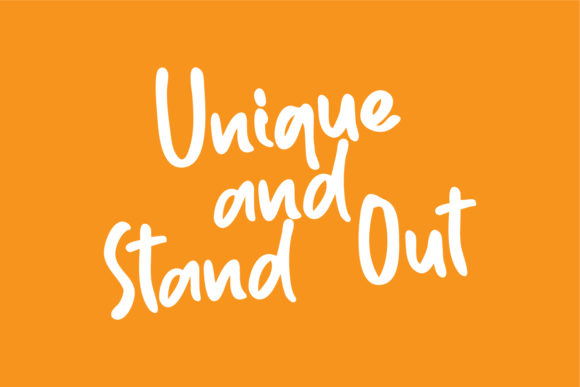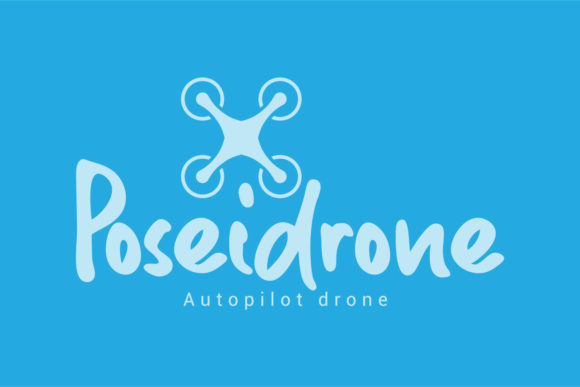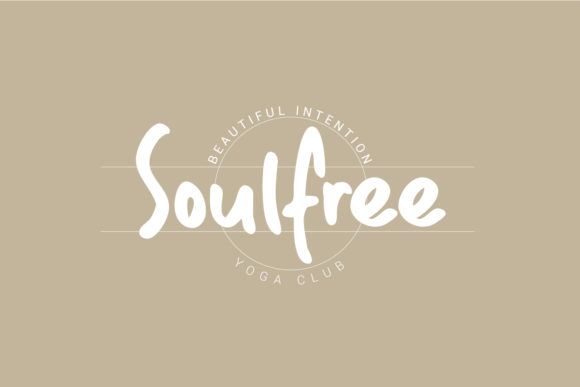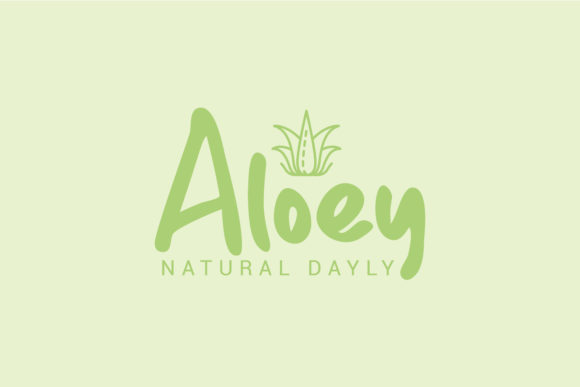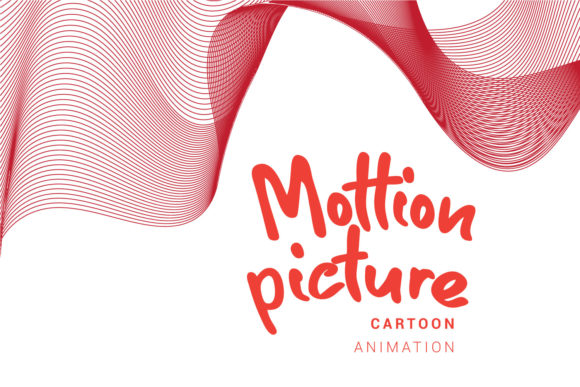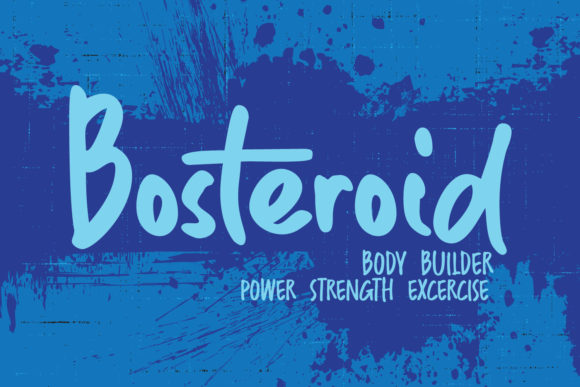
Introduction to Hoffelized Font
Have you ever been in a moment where your creative idea is bursting out of your mind, but you can’t seem to find the perfect visual representation? That’s when I fell in love with the Hoffelized Font. Its whimsical charm instantly elevated my design and gave it the uniqueness I was looking for.
As a designer, I know how crucial it is to have a high-quality design resource that can bring your creative project to life. The Hoffelized Font is more than just a font – it’s a design game-changer. With its transparent background and free download option, you can experiment with this enchanting handwritten font without any limitations.
Key Features of Hoffelized Font
- High-quality, unique font design ideal for creative projects
- Unique, hand-crafted design elements make it a standout design resource for creative projects
Honest Review: Hoffelized Font
I recently stumbled upon the Hoffelized Font while searching for a free download to use in a creative project. I was excited to dive in and see if it would meet my expectations. Overall, I was pleased with the results.
- High quality design – the font is crisp and clean, making it perfect for both digital and print projects.
- Transparent background – this made it easy to layer over other design elements without any issues.
- Great for creative projects – the font’s unique style added a touch of personality to my project.
However, there were a few limitations:
- ⚠️ Limited character set – I found that the font only included a limited range of characters, which made it difficult to use for more complex projects.
- ⚠️ Not ideal for body text – the font’s style is more suited for headlines and titles, rather than large blocks of body text.
Overall, I would recommend the Hoffelized Font for designers looking for a unique and high-quality design resource. While it may not be suitable for every project, it’s a great addition to any designer’s toolkit.
Tips for Getting the Most Out of Hoffelized Font
Experiment with different font sizes and colors to create a unique design. Use the transparent background feature to create a visually appealing design. Download the high quality version of Hoffelized Font for the best results.
Hoffelized Font is perfect for any creative project that requires a unique and visually appealing design. Use it for social media graphics, presentations, or any other project that requires a high quality font. The free download of Hoffelized Font makes it a great resource for designers and non-designers alike.
Is the Hoffelized Font suitable for use on a transparent background?
Yes, the Hoffelized Font is designed to work well on a transparent background. The font’s design and construction ensure that it looks great on both solid and transparent backgrounds. You can use it in web design projects, such as responsive websites, or in graphic design projects where a transparent background is required.